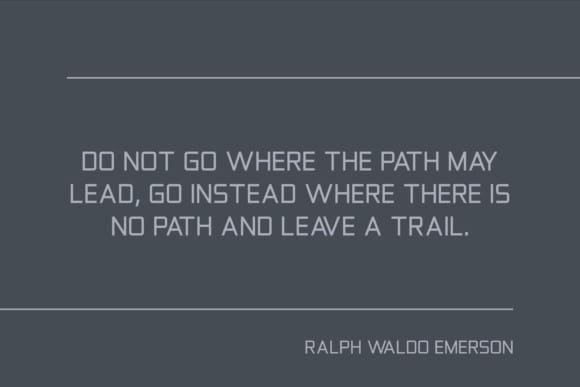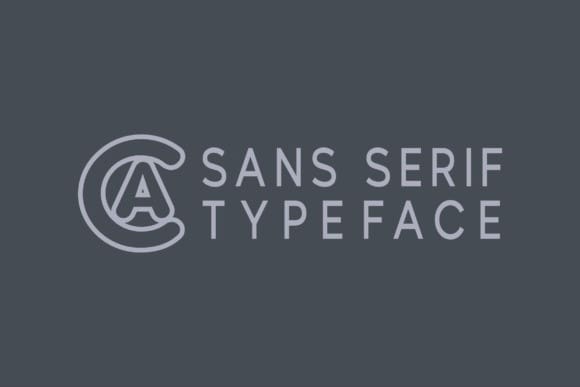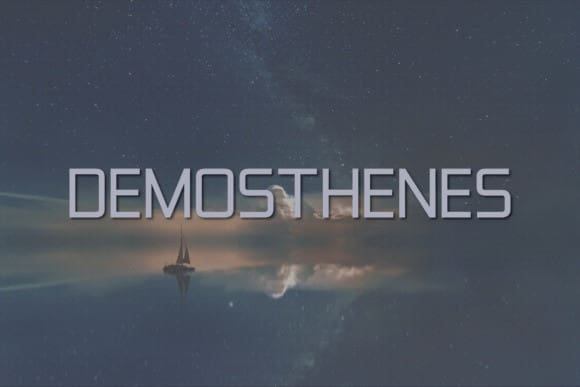
Demosthenes Font
Demosthenes Font – a contemporary, opulent sans serif font. Replete with an assortment of uppercase letters, numbers ranging from 0 to 9, and a diverse array of punctuation marks and symbols, this typeface exudes an exceptional versatility. Ideal for emblazoning logos, embellishing wedding invitations, punctuating memorable quotes, enhancing advertisements, adding gravity to print materials or drawing the reader’s eye in magazines, and so much more. Stimulate creativity with Demosthenes Font, the quintessence of elegance and modern design.